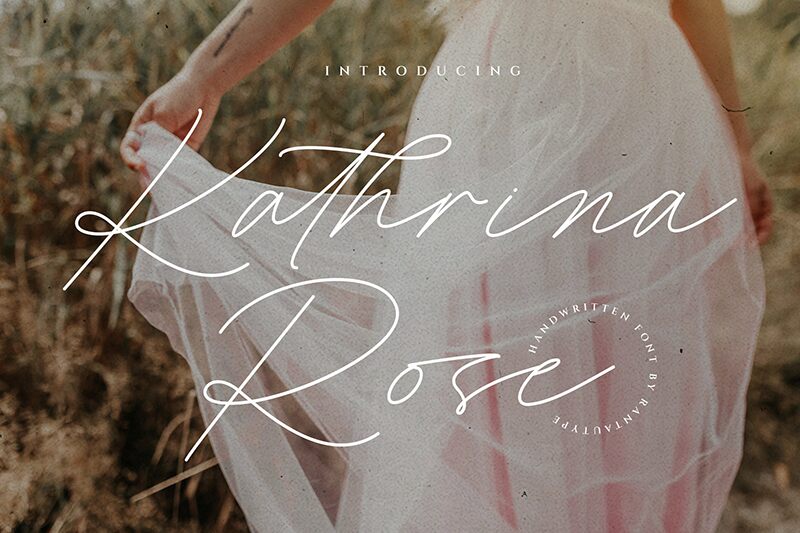
Kathrina Rose
Kathrina Rose font is a light handwritten signature work of elegance by RantautypeStudio. Meant to appear casual, its flowing lines have a natural and approachable sense. This contemporary font manages to take the best of both worlds without losing its modern yet unique flair.
This free handwritten font is versatile in nature with plenty of visuals it can improve and elevates. Some examples include thank you notes, gratitude messages, wedding invites, logos, product designs, packaging boards/tags, gift cards, business cards combined with layers or backgrounds designed for natural typography use. Add even more vague mediums like handwritten book covers or abstract typographic posters.